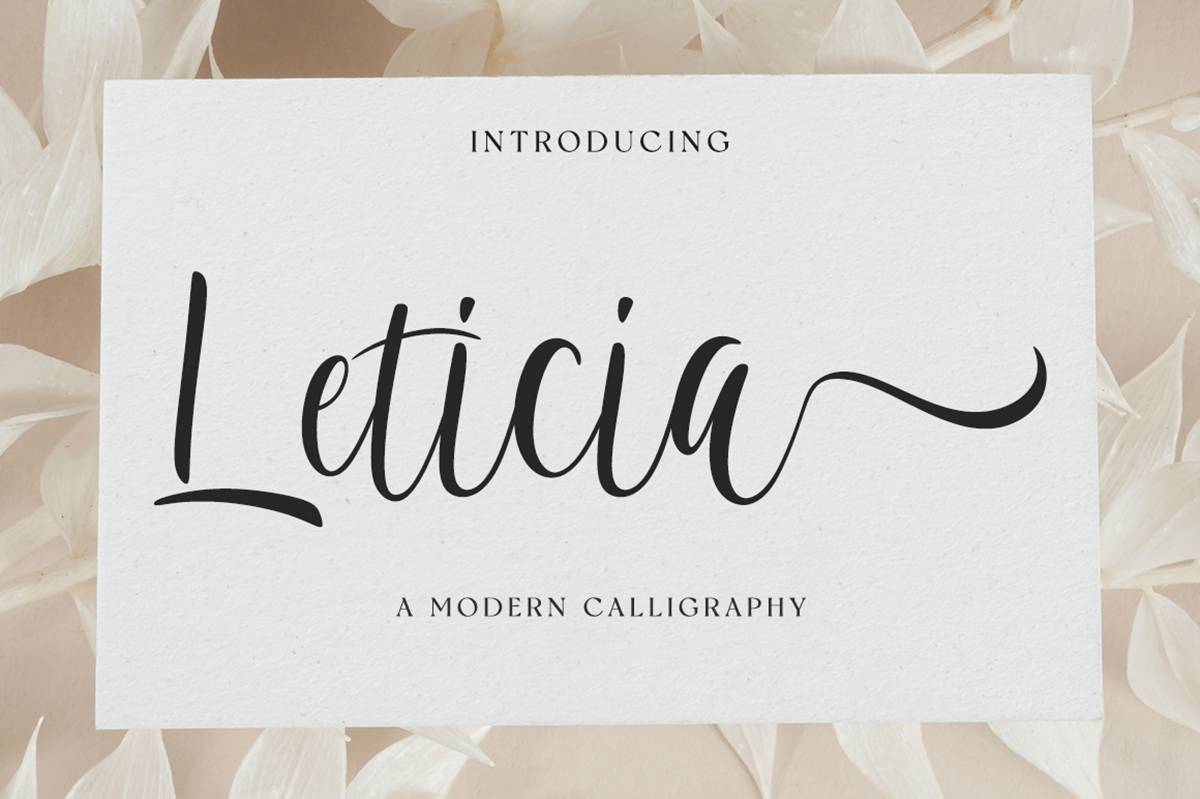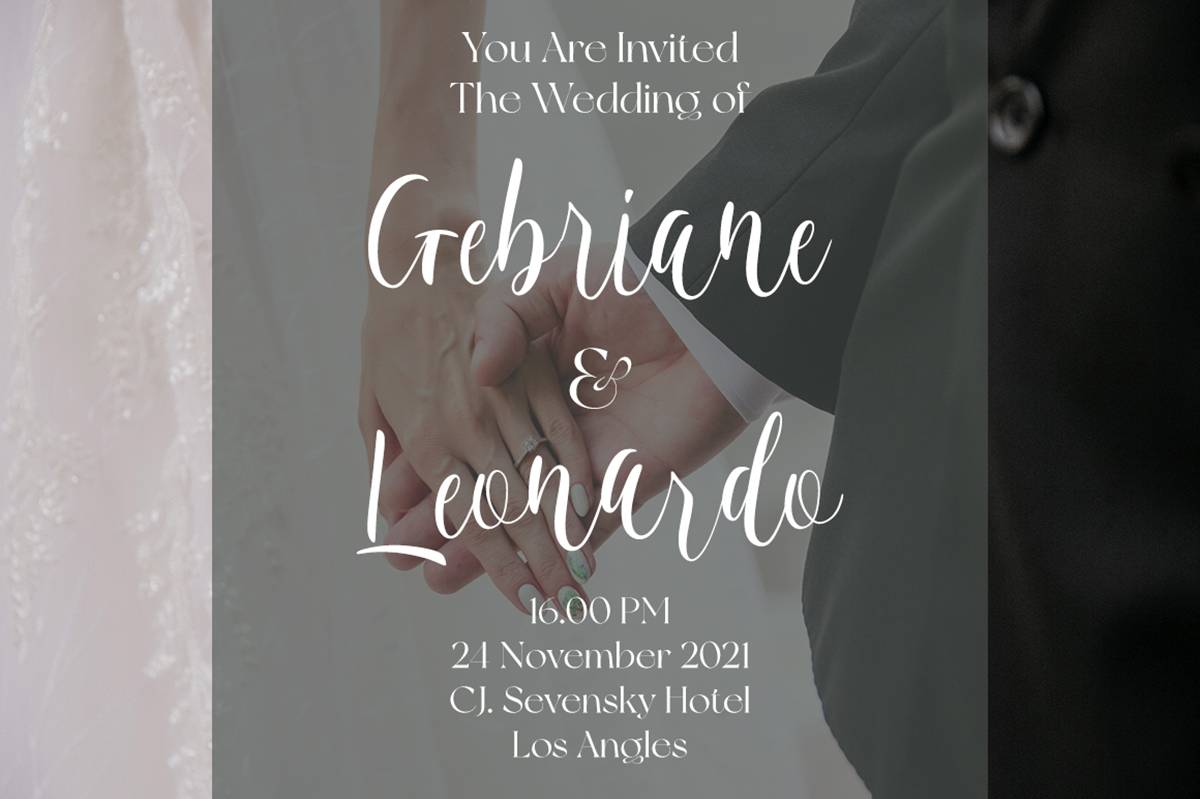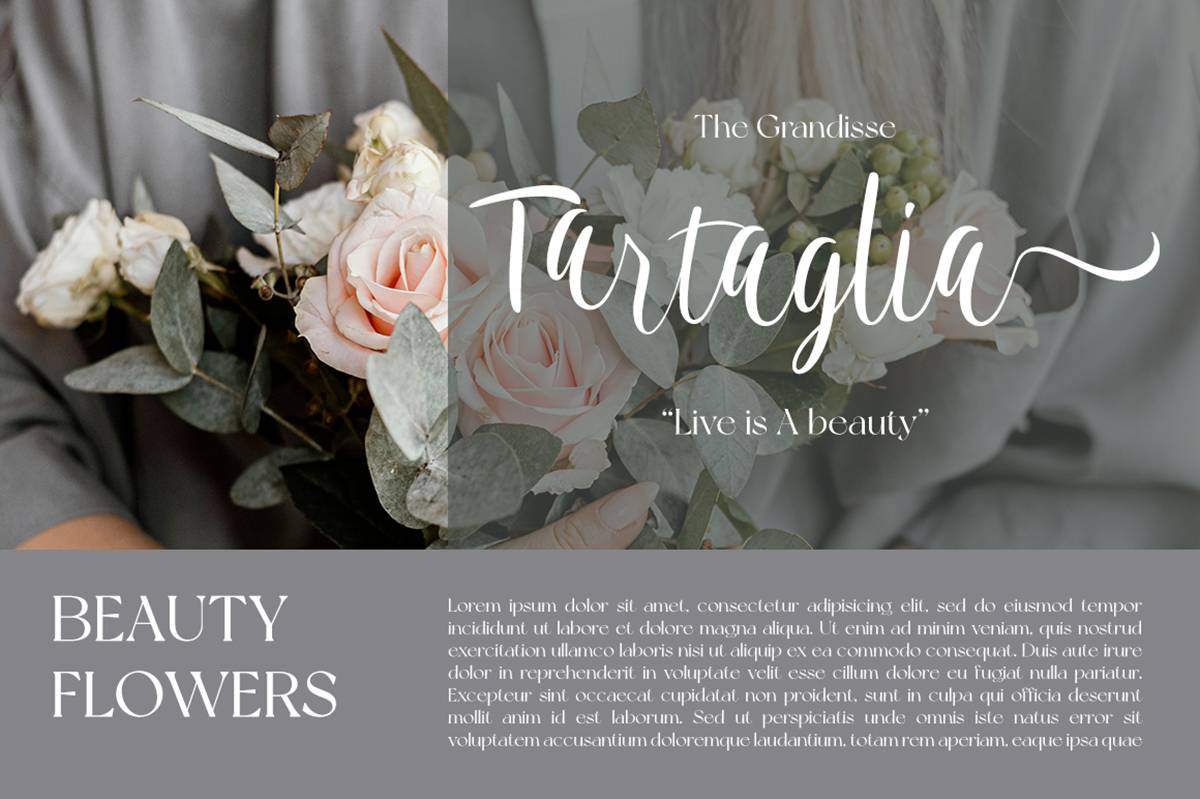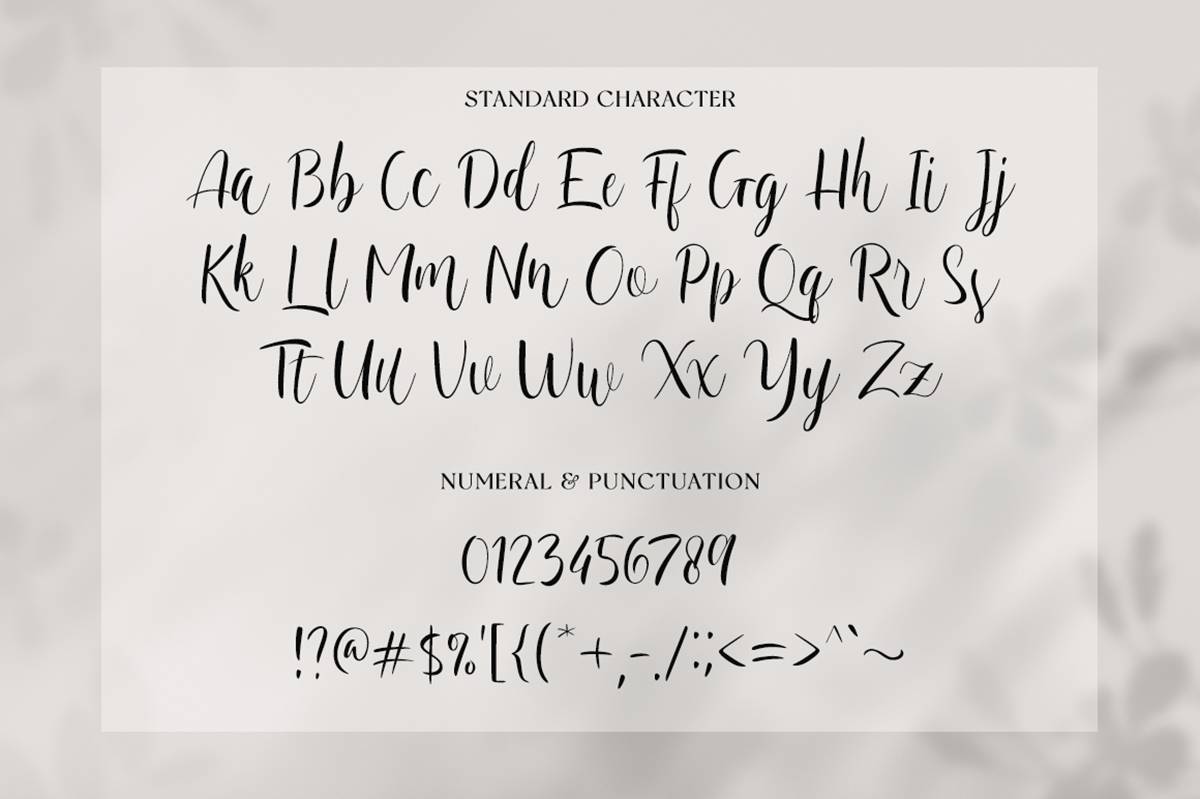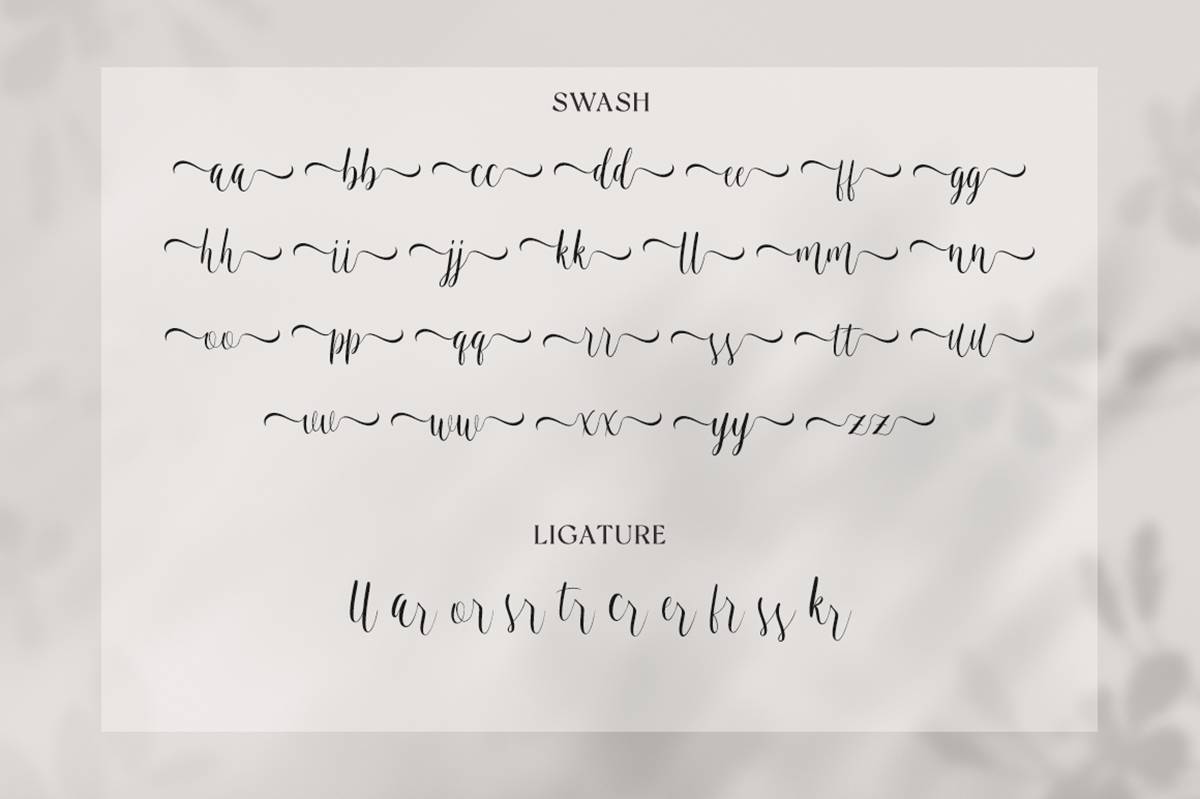
Leticia is a stylish, modern script font that features elegant, flowing letterforms with a light weight and moderate contrast. Its smooth, calligraphic strokes convey a feminine and sophisticated feel, making it perfect for branding, invitations, and fashion-related designs where a graceful, personal touch is desired. The font's airy spacing and delicate curves also lend it well to headline use in editorial and creative projects seeking an elegant yet approachable aesthetic.
Leticia Font
About Leticia Font